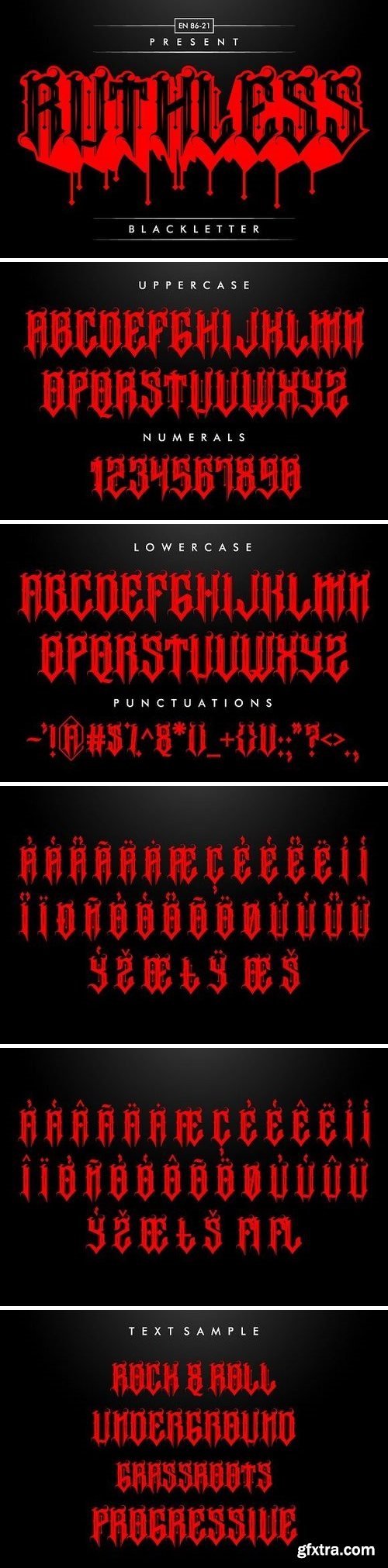
CM - Ruthless Typeface 938368
EN 86-21 presenting Ruthless that inspired from tatoo and band logotype. Product Contain: Rutheless.TTF (TTF Format) The package contain: Uppercase Lowercase Numerals Punctuation Accents Thanks for looking and enjoy the product